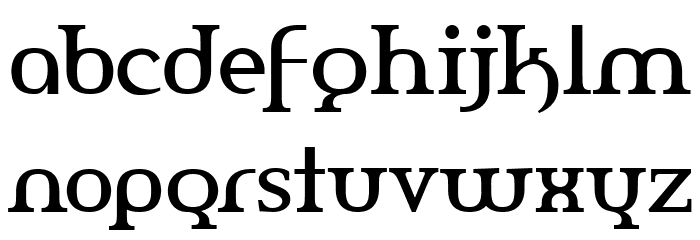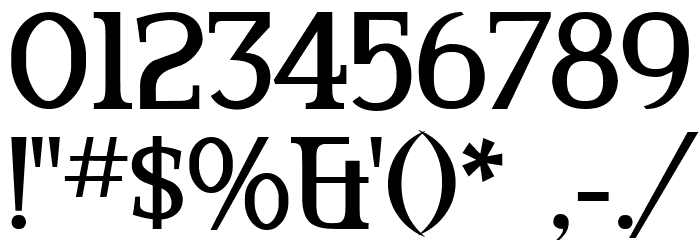
Amerika Font
This font exhibits a unique blend of modern and classic elements, characterized by its distinct, slightly curved serifs and a strong vertical emphasis. The uppercase letters are bold and commanding, with a slight curvature that adds a touch of elegance. The lowercase letters maintain a consistent style, with rounded forms that complement the uppercase. Numbers are clear and legible, featuring a uniform thickness that ensures readability. Special characters are designed with the same attention to detail, providing a cohesive look across all glyphs. The overall appearance is both sophisticated and approachable, making it suitable for a variety of design applications.
A modern serif font with elegant curves and strong vertical emphasis.
- Font: Amerika
- Proposed Projects: Ideal for branding, editorial design, and high-end product packaging.
- Category: Serif